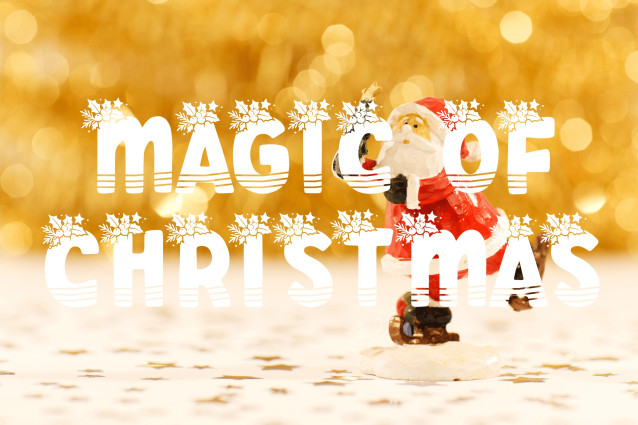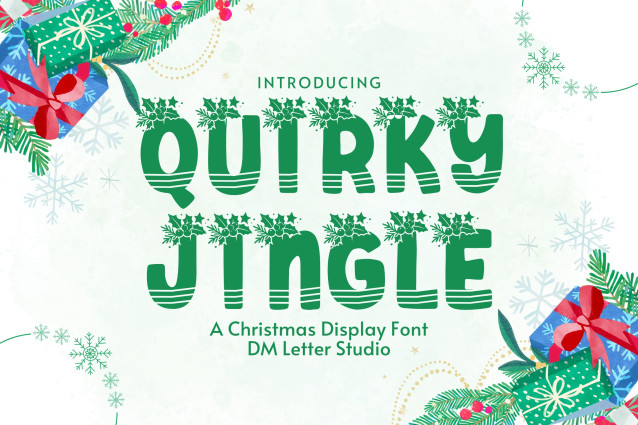
Quirky Jingle Font
Quirky Jingle Font is a joyful and spirited display font inspired by the magic of the holidays. With its bold, bouncy letters and cheerful character, this font is perfect for Christmas cards, festive merchandise, seasonal invitations, and holiday-themed crafts. Its hand-drawn charm and whimsical style add a lighthearted, magical vibe to every project it touches.